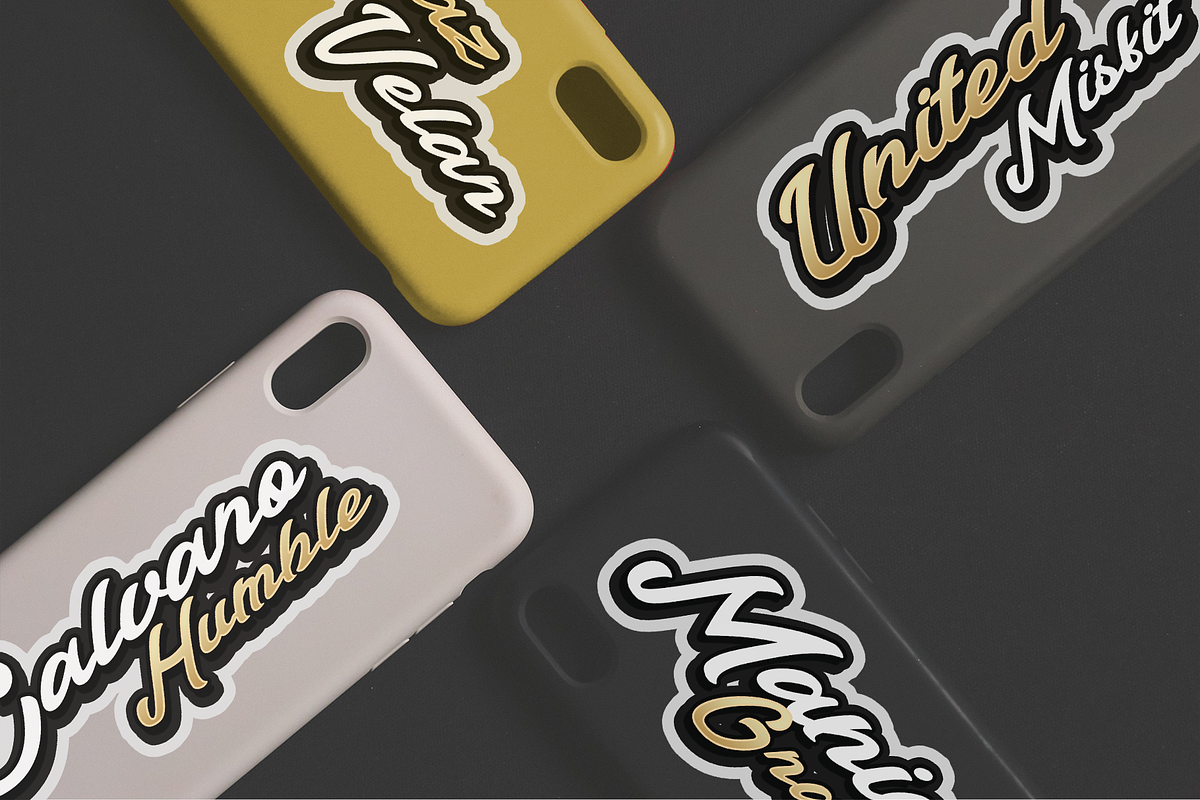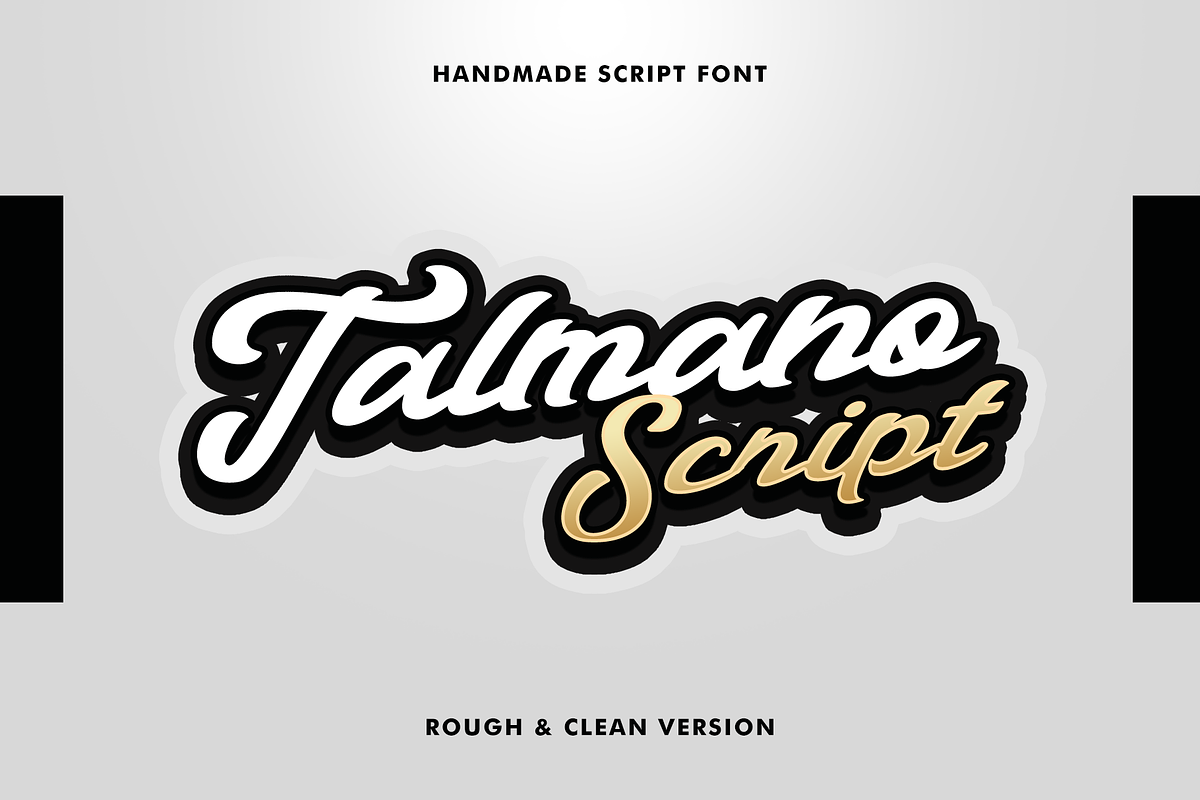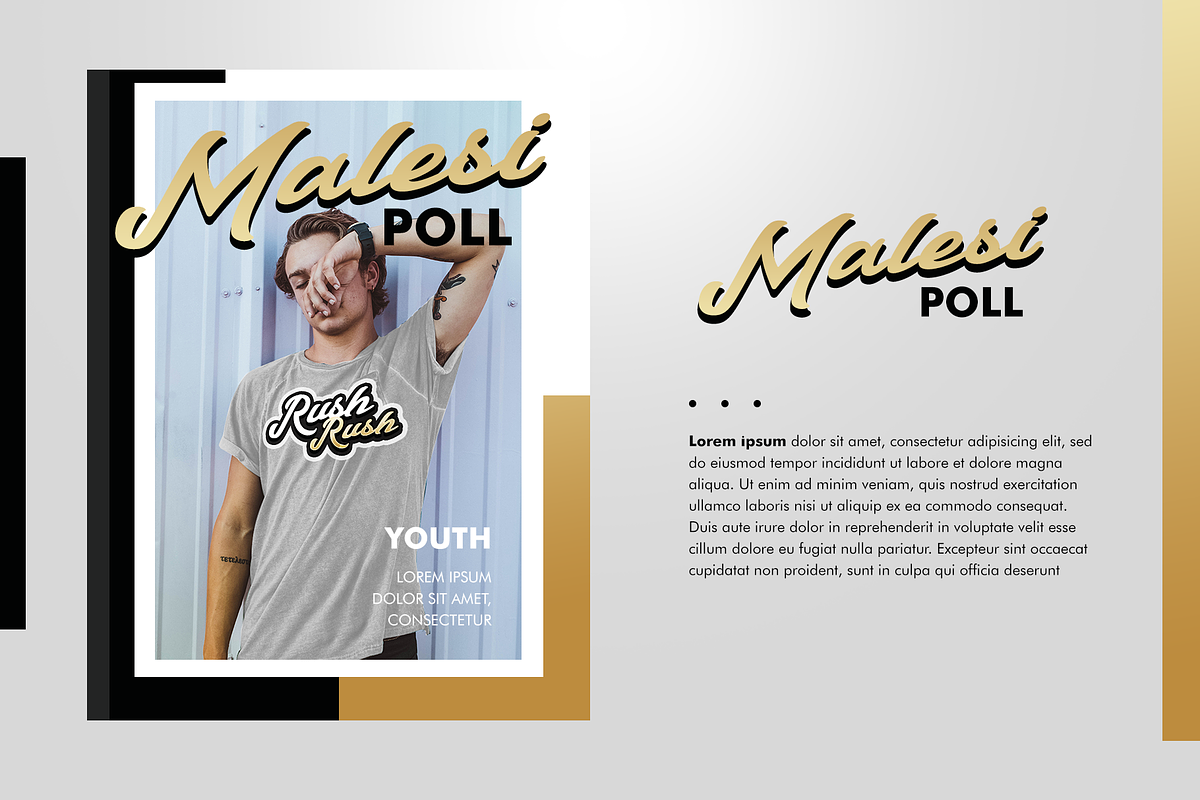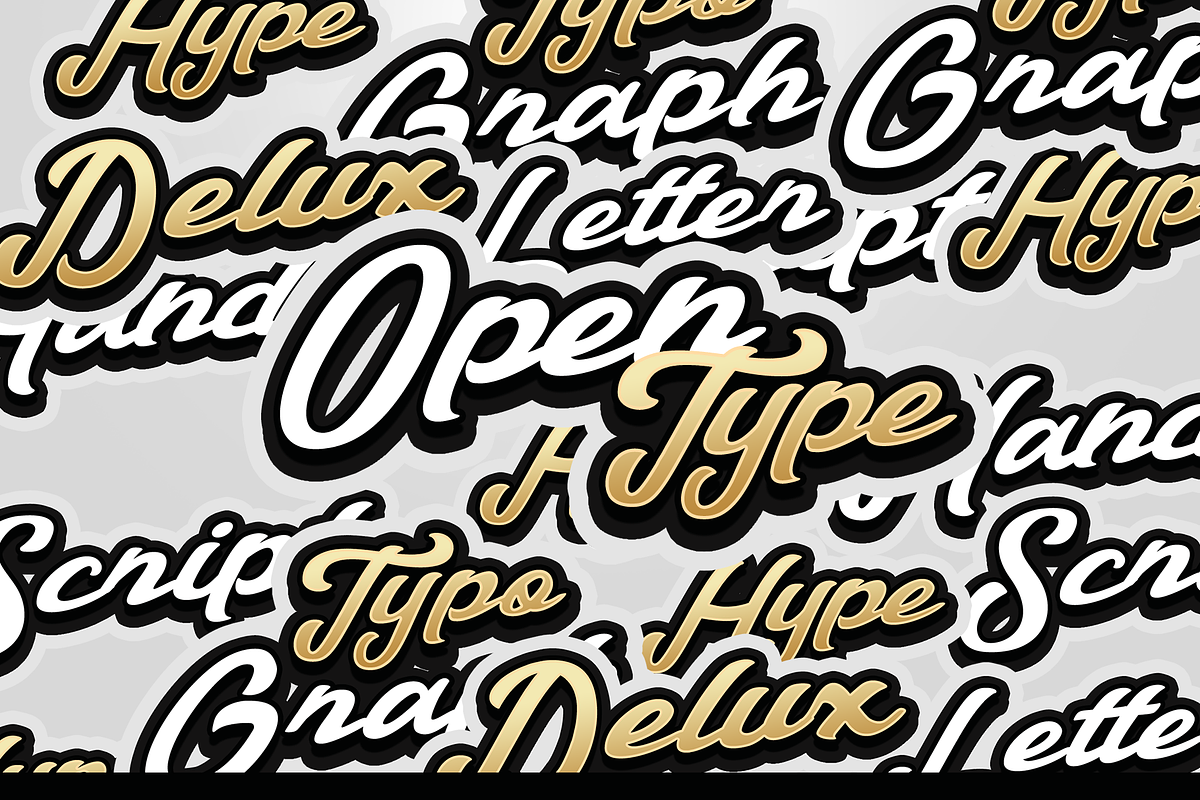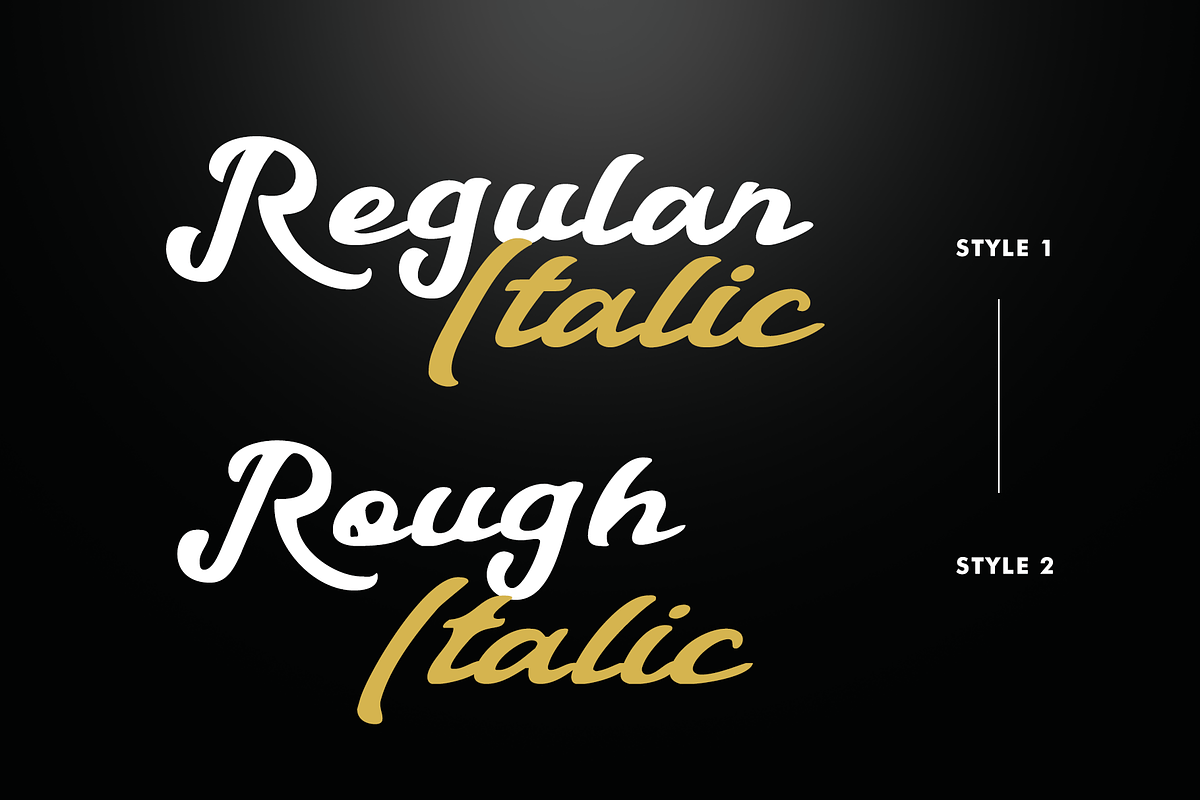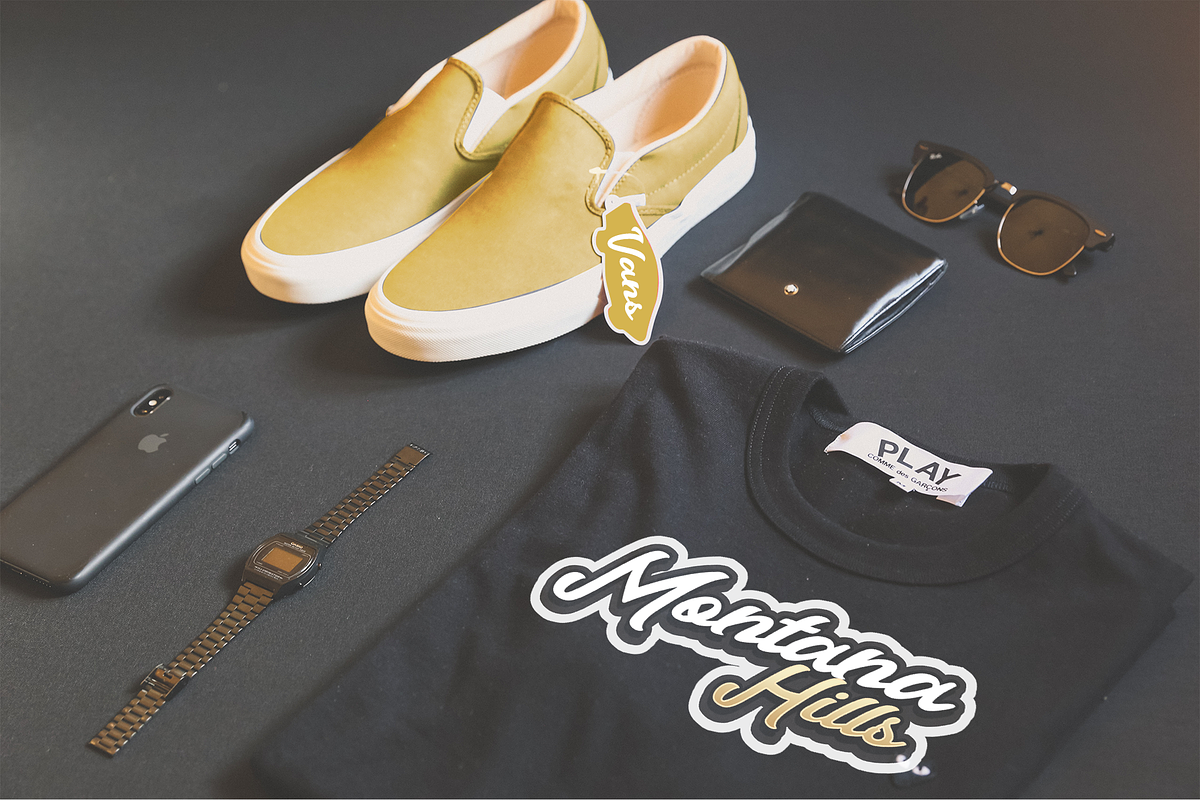
Talmano Script Font - a new modern fresh script with a handwritten and script style make this font looks elegant, natural, stylish and perfect for any awesome projects that need handwriting taste.
- Talmano Italic Regular
- Talmano Regular
- Talmano Rough Italic Regular
- Talmano Rough Regular